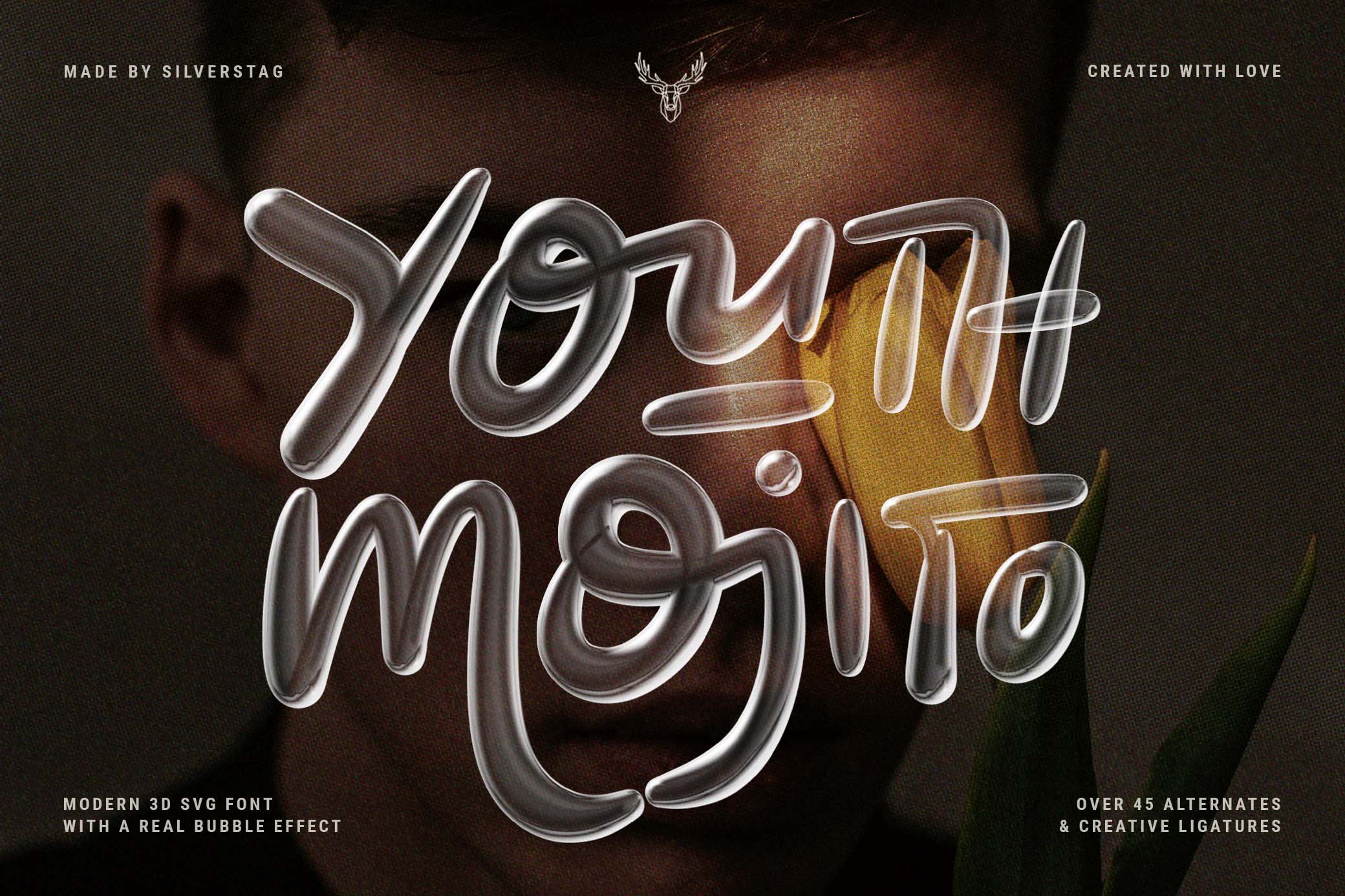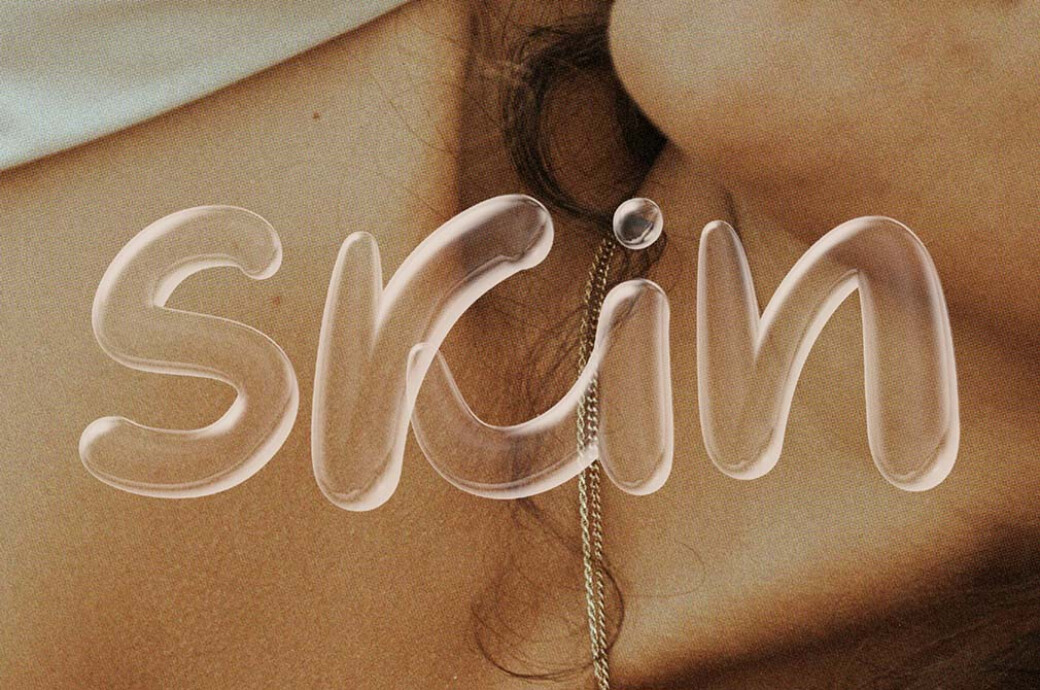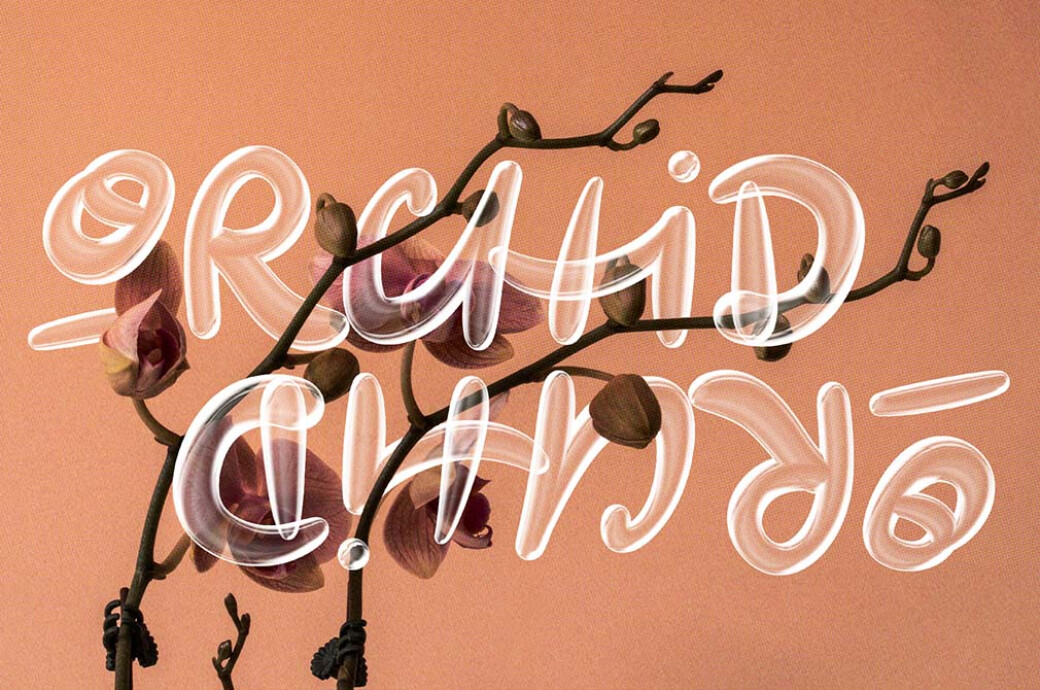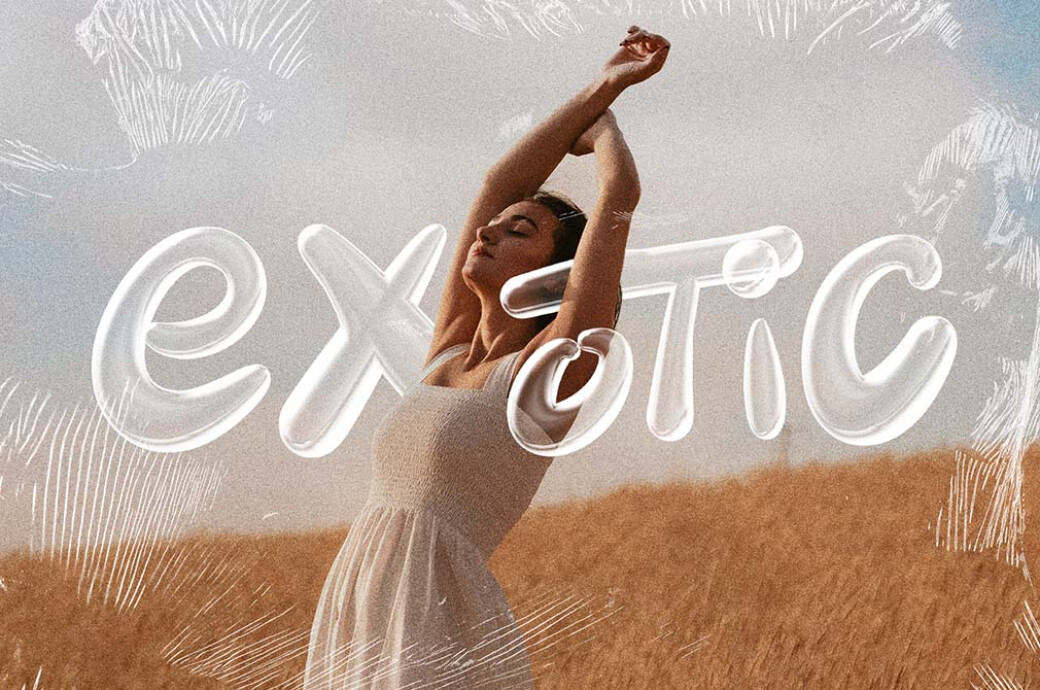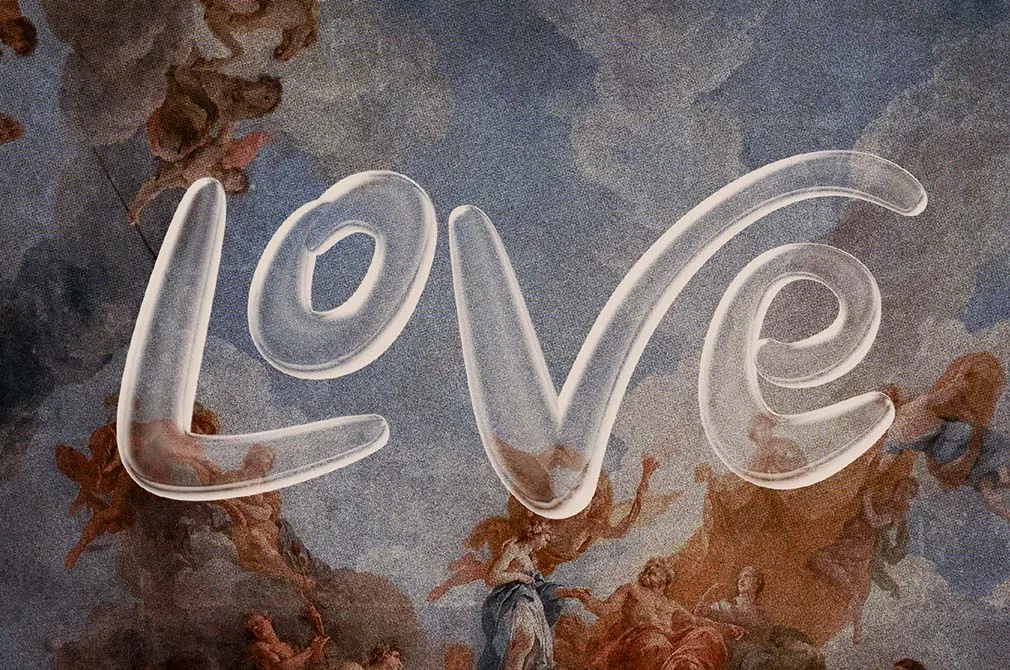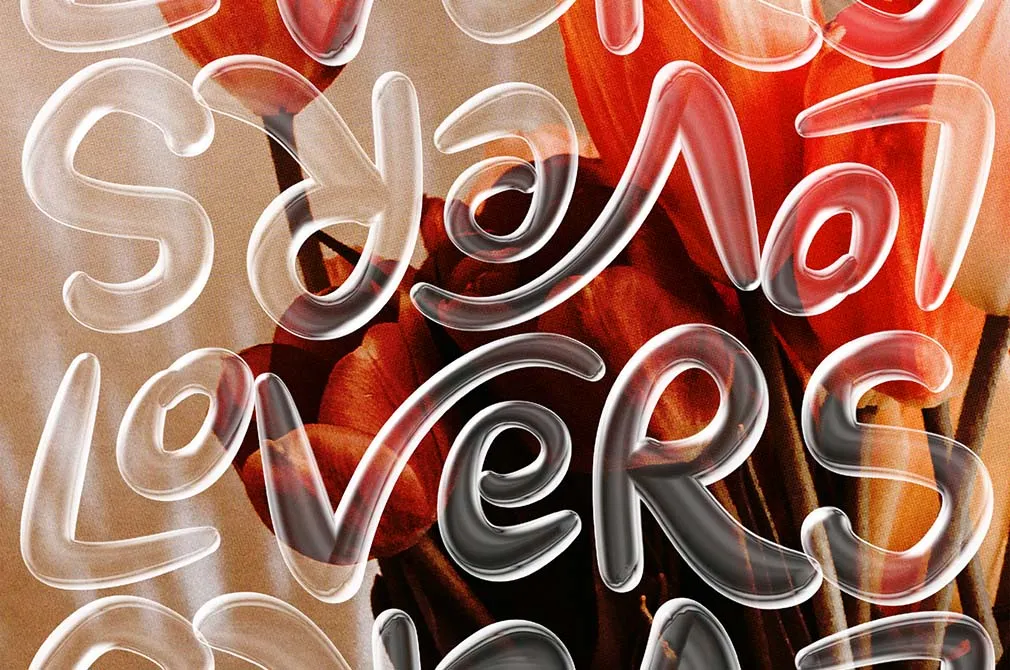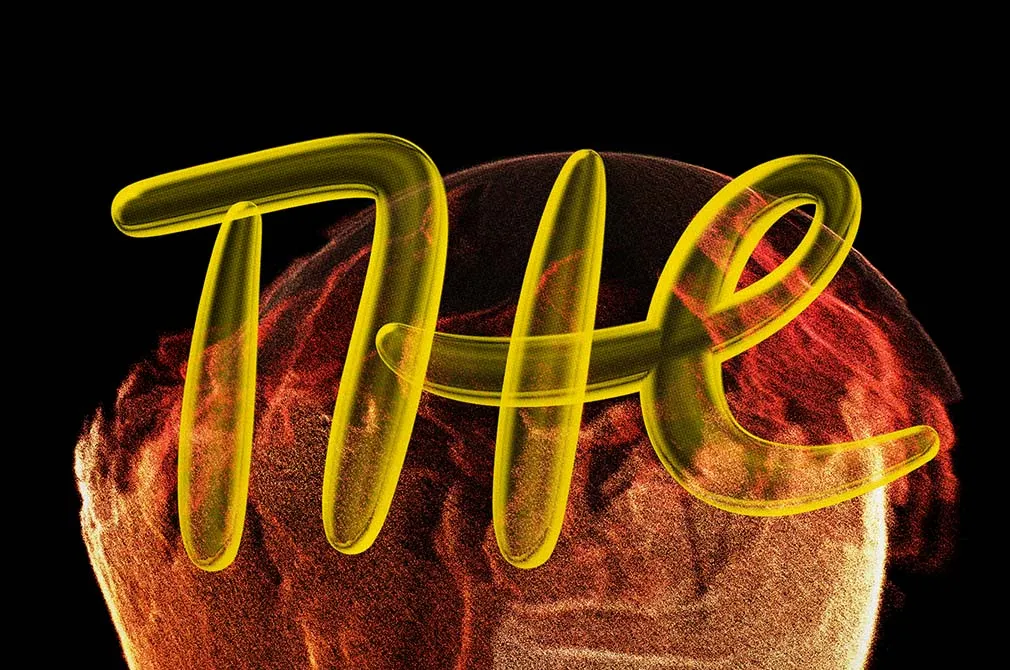
YOUTH MOJITO 3D SVG Font
"Breakfast at Tiffany's and bottles of bubbles" is a line from a song for some and a typographic inspiration for others. In our case, it transformed into an expressive 3D font.Meet Youth Mojito and get everything you ever liked about 3D typography and recent design trends, which are all about experimental types. In fact, we are obsessed (oh yeah!) with all sorts of experiments in typography, and we hope you'll share our passion with this incredible 3D bubble font. First, it looks snazzy. Second, such visual is now all the rage. Third, Youth Mojito has a complete set of characters and full language support.